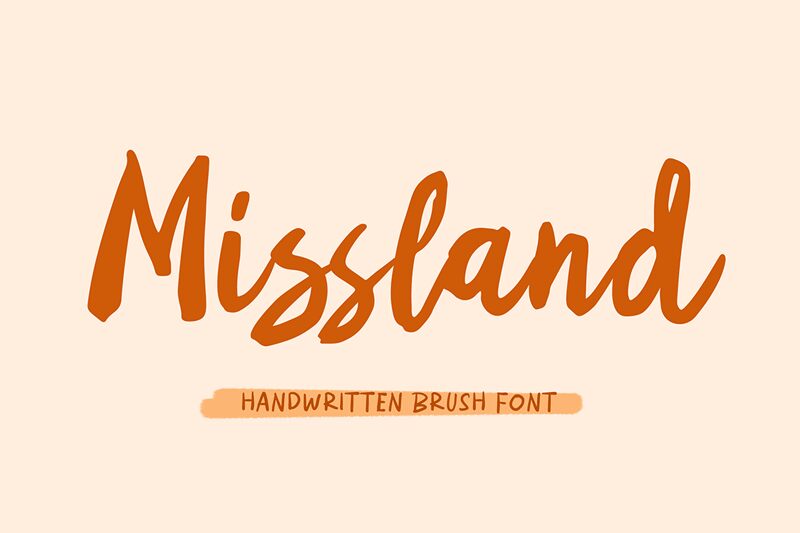
Introducing Missland, a handmade brush script font designed by Wahyu Andi Prasetiyo. This beautiful script font is perfect for adding a personal and stylish touch to any project. Use it for logos, invitations, cards, quotes and more!
Missland